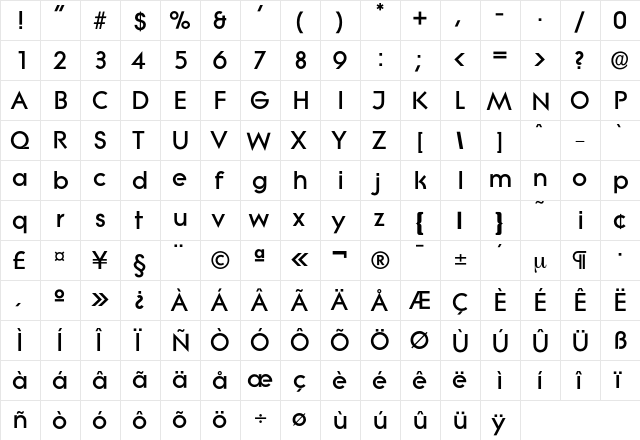
Litera-Heavy Regular
Design Context for Litera-Heavy Typeface
Litera-Heavy takes a measured approach to typography — its balanced proportions and neutral character make it a reliable workhorse for both digital and print work.